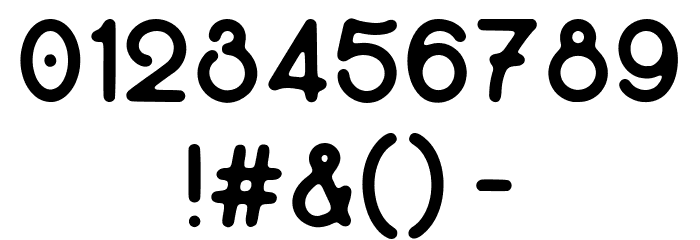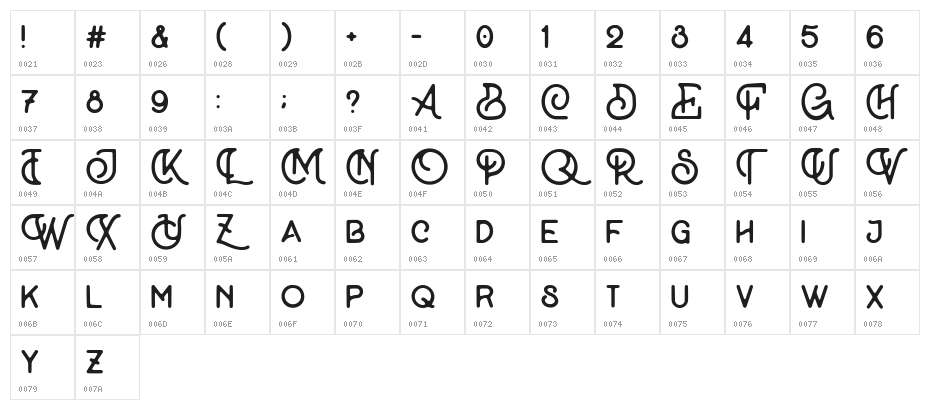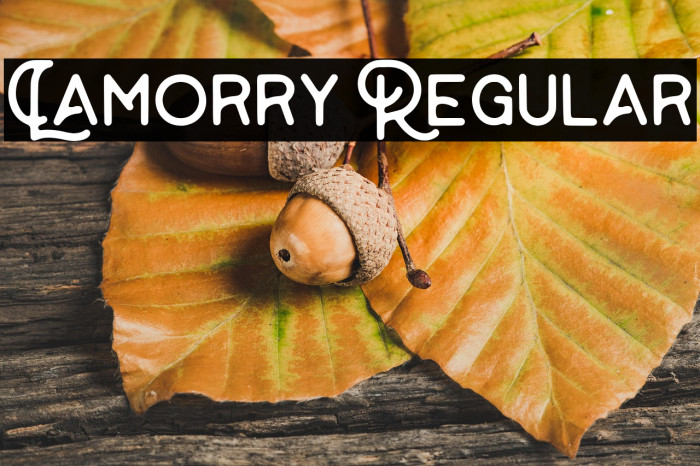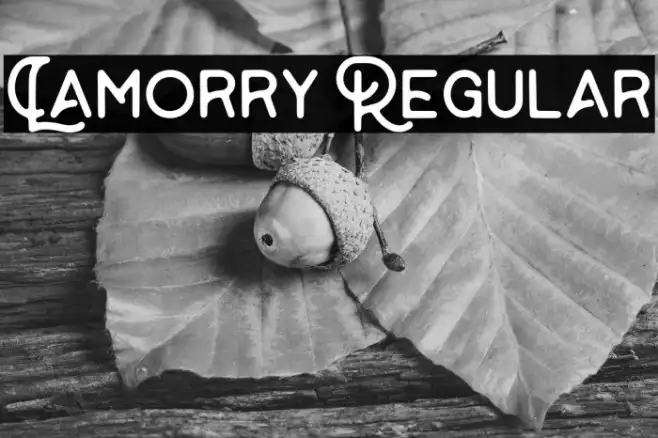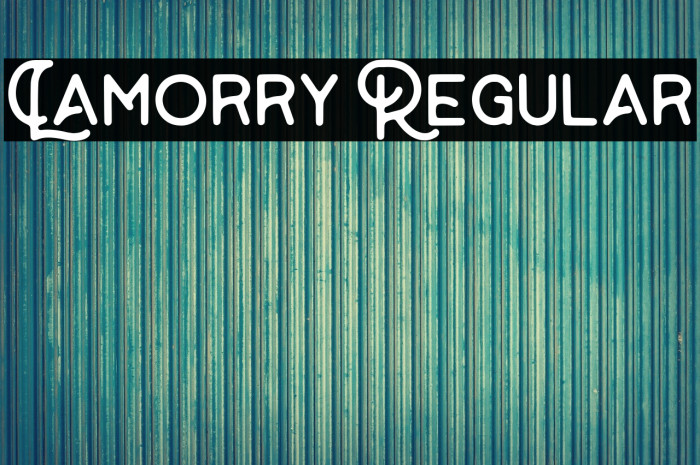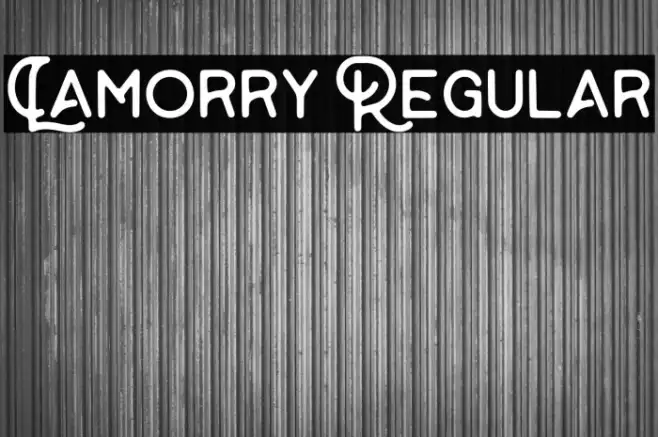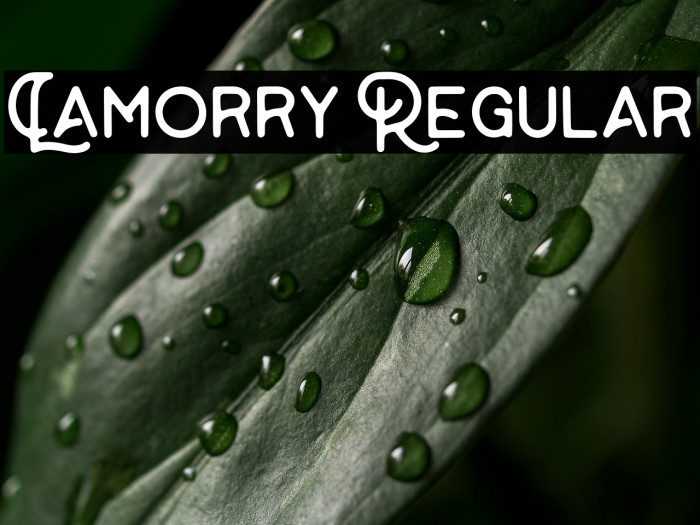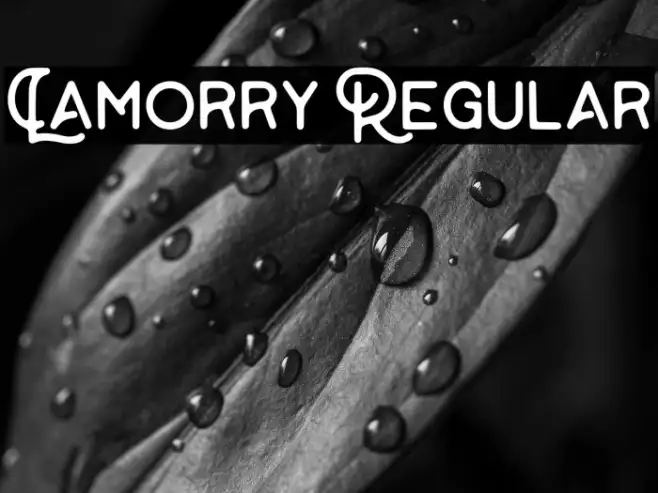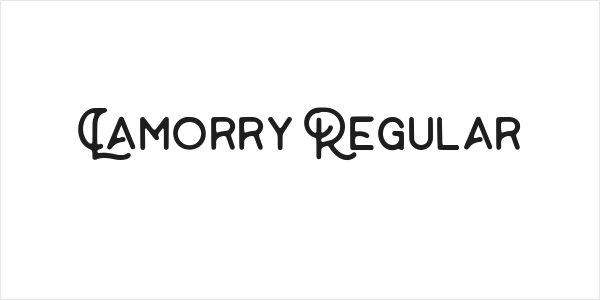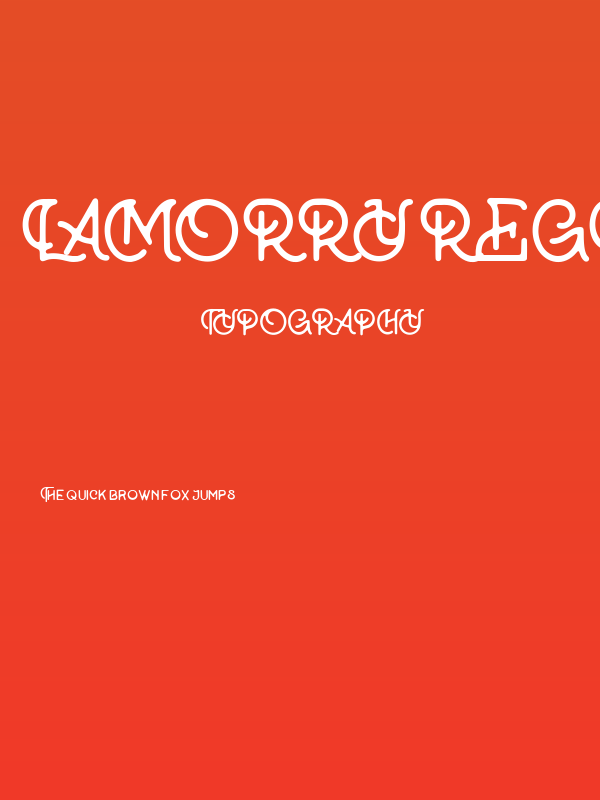
Lamorry Regular Font
Lamorry Regular Description
This font features a playful and decorative style with a unique flair. The uppercase letters have a whimsical, almost cartoonish quality, with exaggerated curves and loops that give them a lively appearance. The lowercase letters maintain this playful aesthetic but are slightly more restrained, offering a good balance. The numbers are bold and rounded, matching the overall style of the alphabet. Special characters are designed with the same attention to detail, ensuring consistency throughout. This font is perfect for projects that require a fun and engaging look, such as children's books, playful branding, or creative posters.
| Proposed Projects | Ideal for children's books, playful branding, creative posters, and fun invitations. |